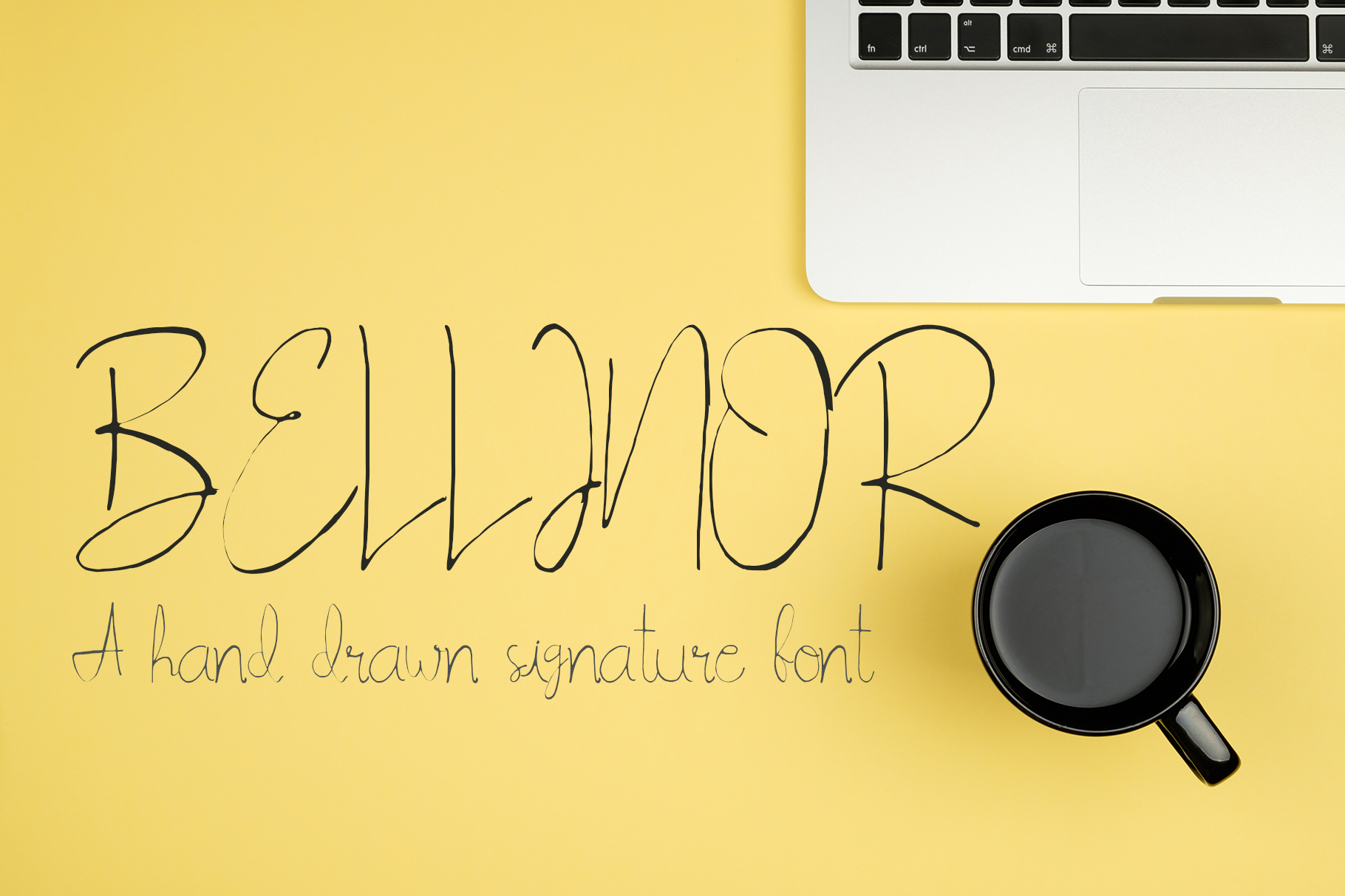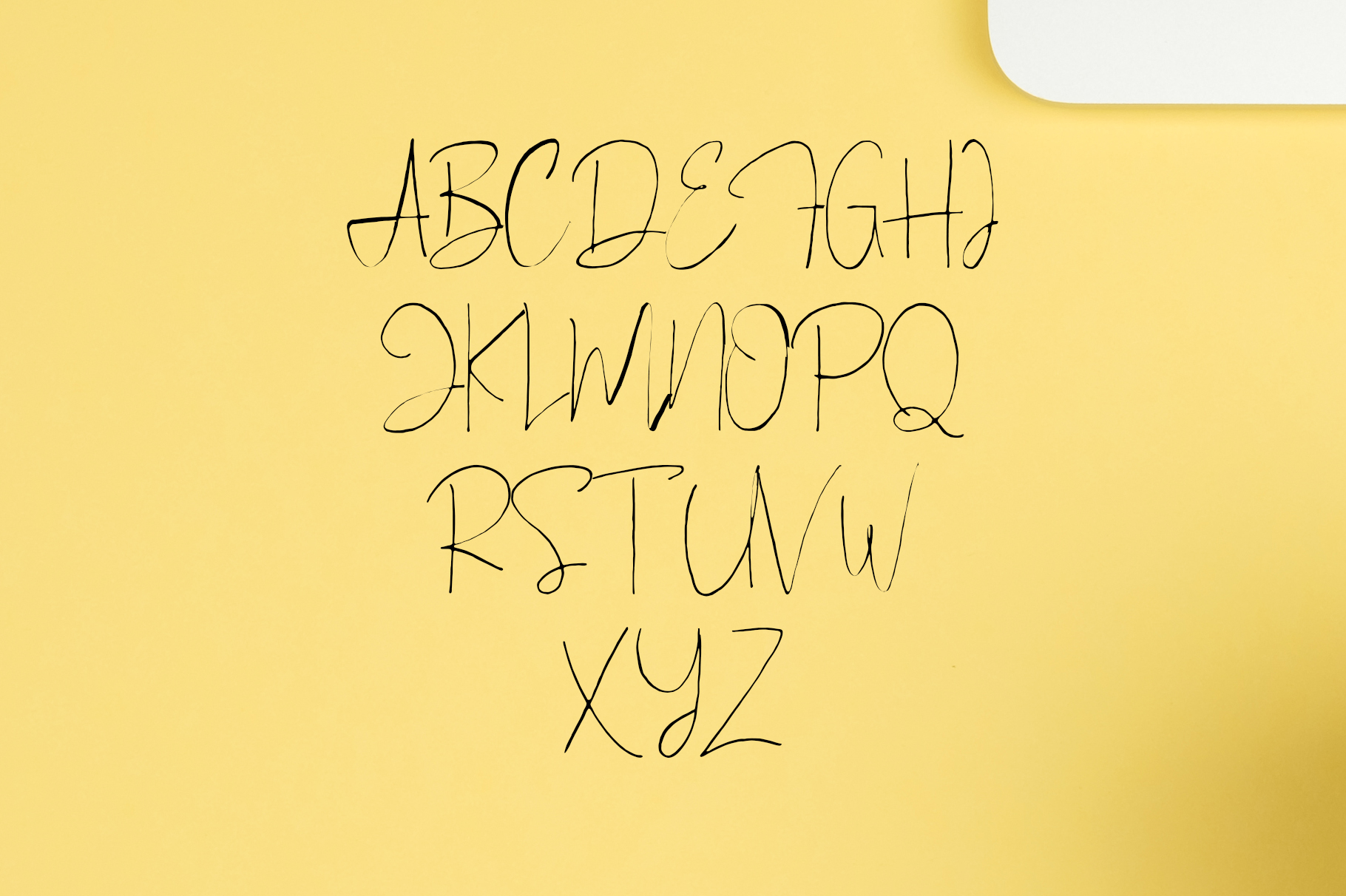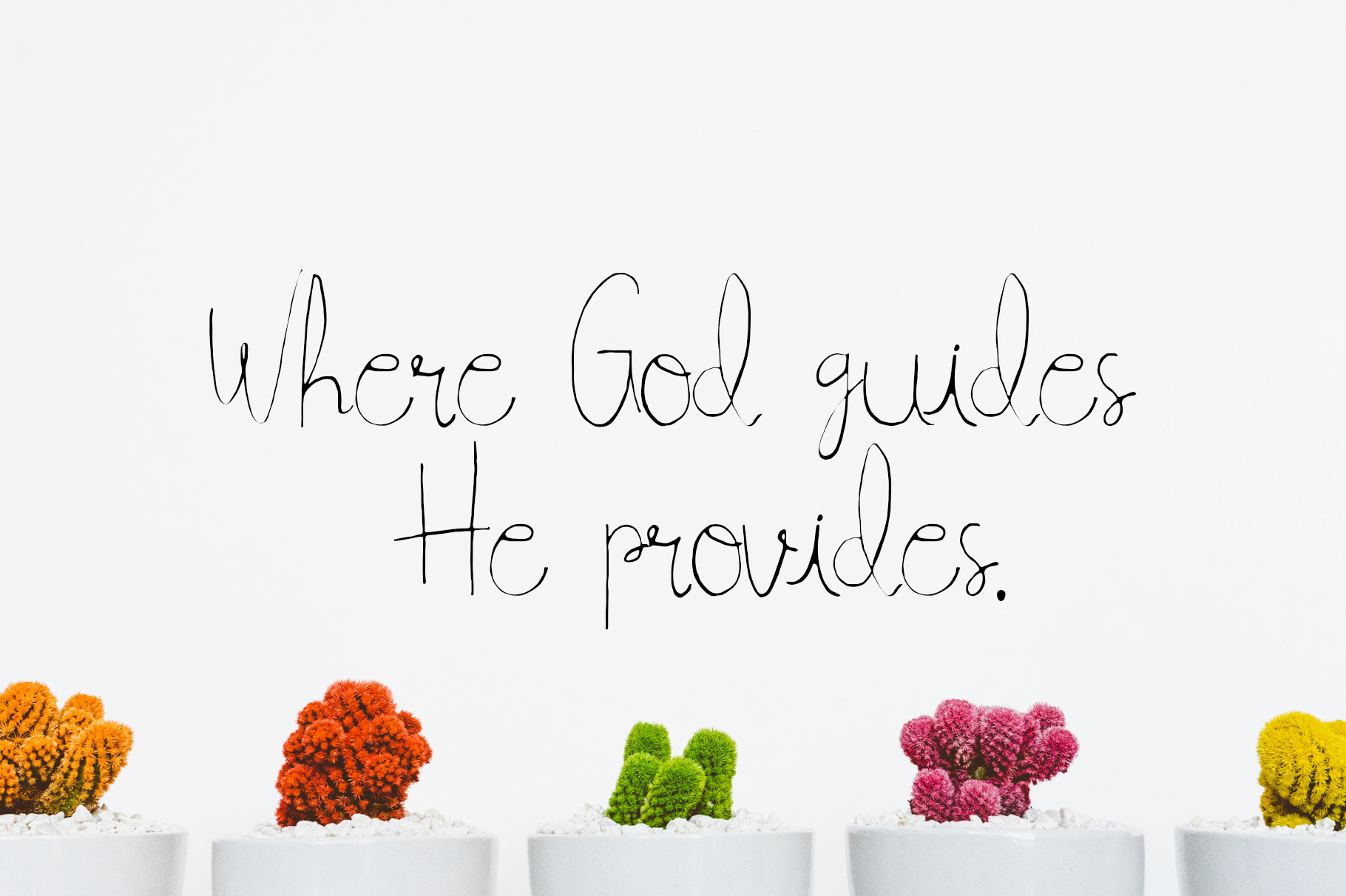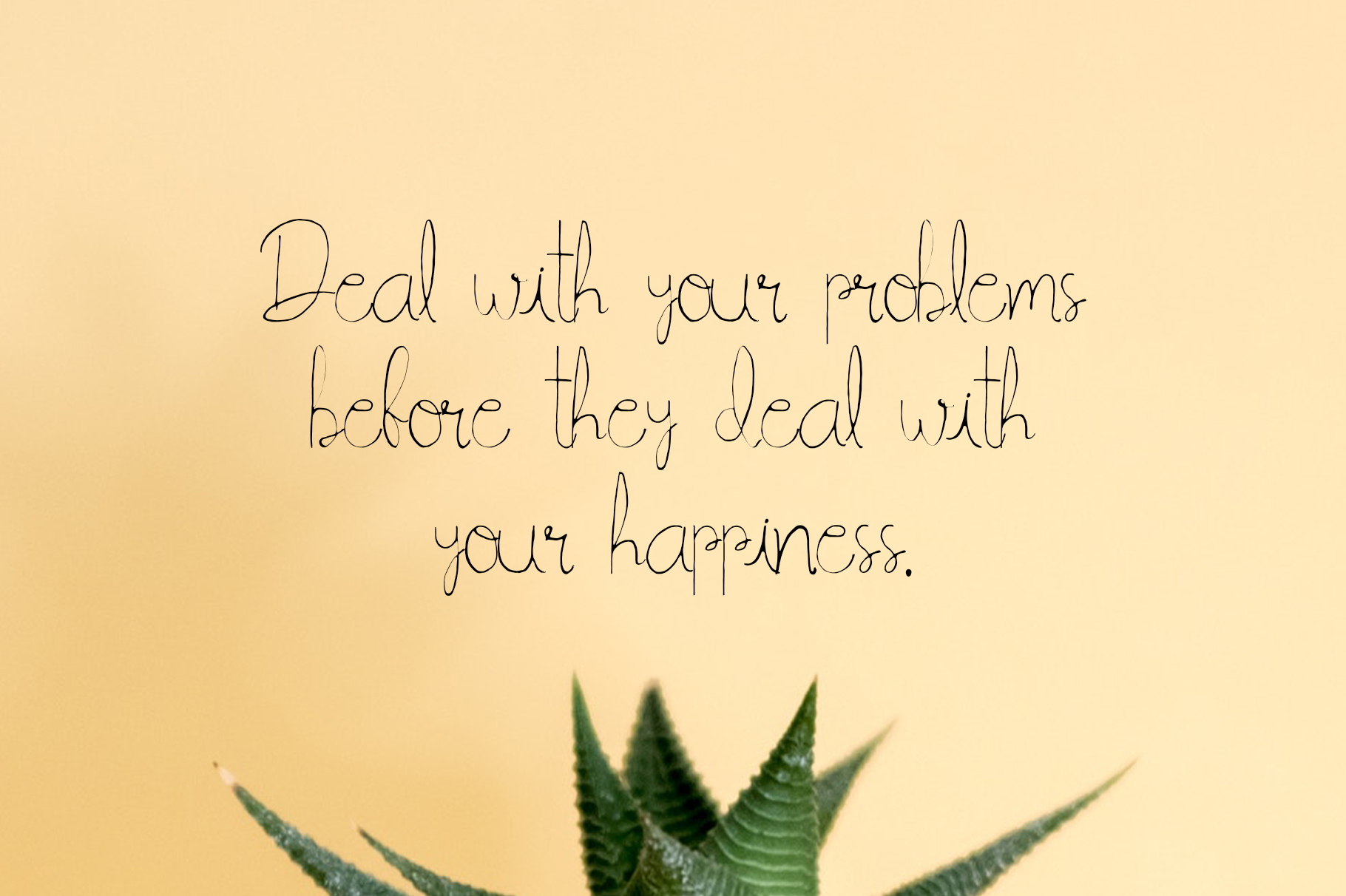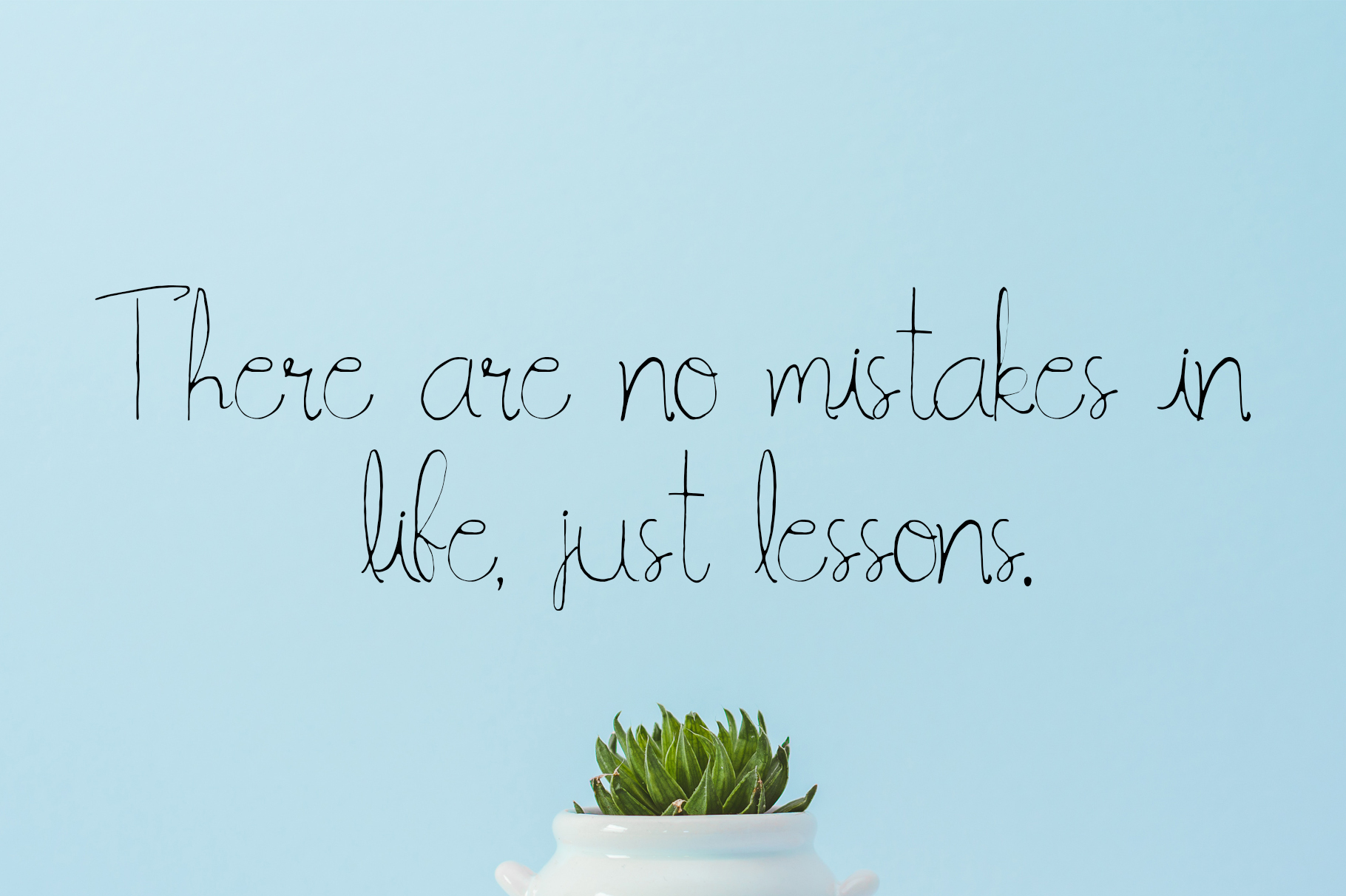
Bellinor Font
About Bellinor Font
Bellinor is a hand drawn signature font with delicate, adorable touch. Bellinor comes up with 149 glyphs with complete set of endearing uppercase, lowercase, letters, numerals, a massive range of punctuation and ligatures. It is perfect for a wide range of friendly and delicate designs.
Bellinor Font Features:
– Uppercase Multilingual Letters
– Lowercase Multilingual Letters
– Numbers & Punctuation
– Alternative